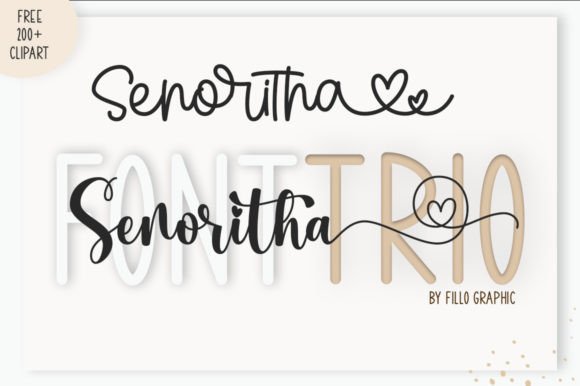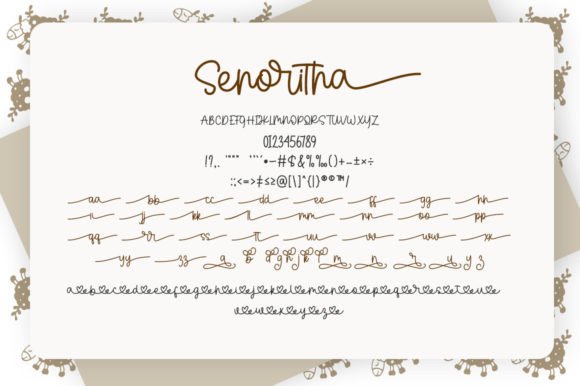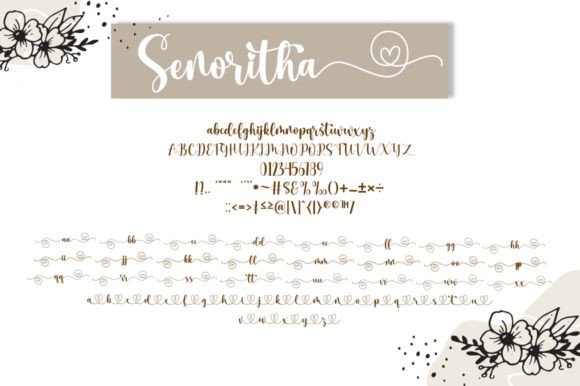
About Senoritha Font
Senoritha consists of three fonts (handwritten, script, and sans serif) designed to complement each other perfectly. Together or apart, these fonts are ideal for adding a chic and cheery touch to your crafts. This font is PUA encoded, which means you can access all glyphs and swashes with ease!